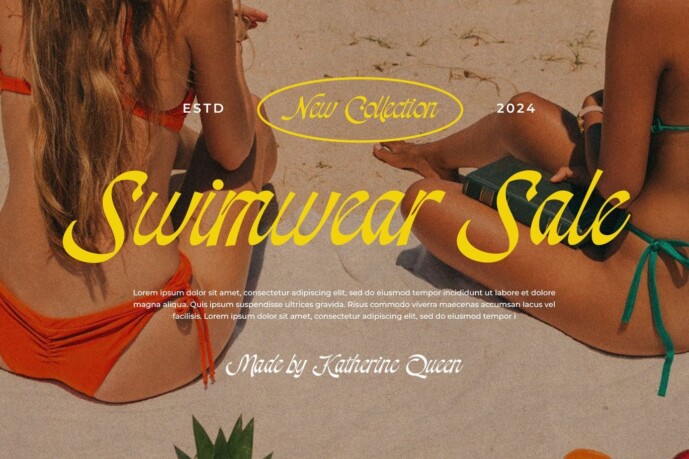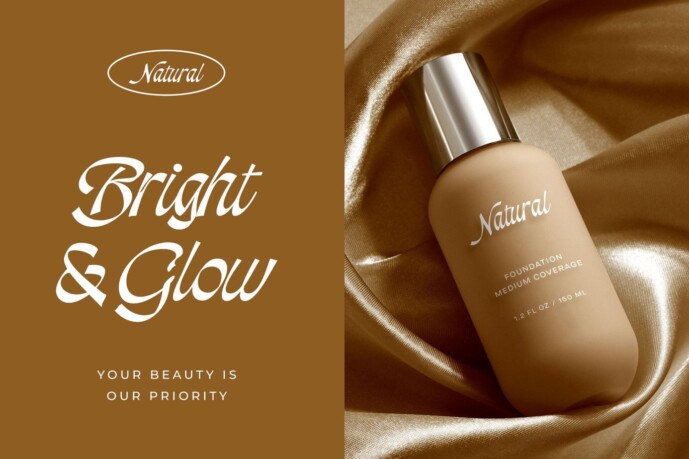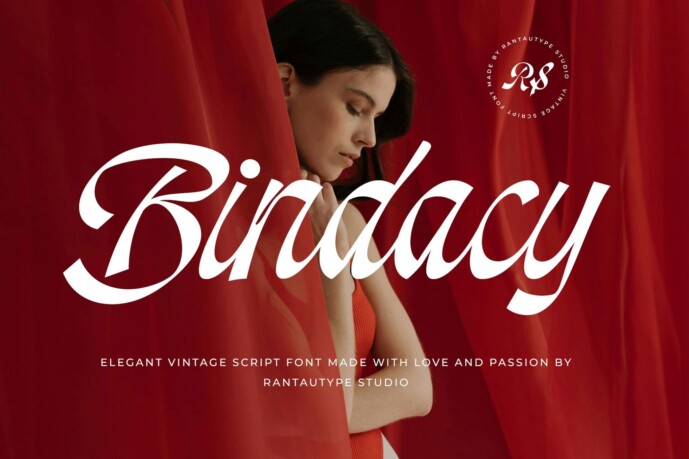
Bindacy Font
Designer: RantautypeStudio
Bindacy Font is a vintage typeface inspired by old-school posters from the 90s, 70s, and 60s, with a grace and retro vibe. Bindacy has a contrasting character and a fluid shape. Bindacy is a great choice for any creative endeavor, creating modern and chic lifestyle designs such as logotype, headline, cover, branding, invitations, wedding designs, displays and magazines, social media posts, advertisements, print quotes, product packaging, corporate branding, product designs, labels, photography, watermarks, special events, and any other projects with a vintage touch.